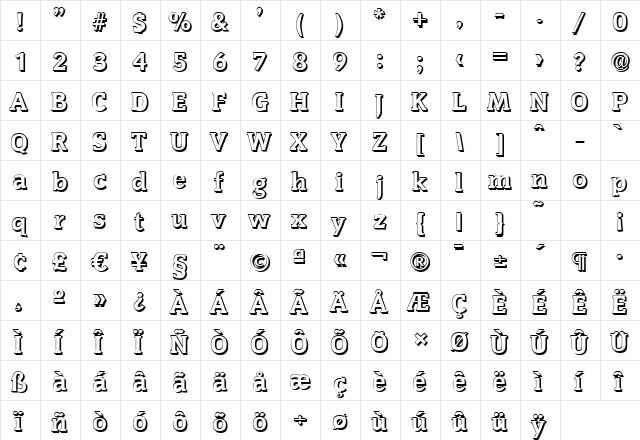
KevinBeckerShadow-ExtraBold Regular Font Preview
KevinBeckerShadow-ExtraBold Regular
Design Context for KevinBeckerShadow-ExtraBold Typeface
KevinBeckerShadow-ExtraBold brings ornamental detail and strong personality to headlines and identities, where visual impact matters more than quiet functionality. Its bold stroke weight gives it real presence on the page.
Font Pairing: Pair with a clean neutral sans-serif for body copy to let KevinBeckerShadow-ExtraBold's character lead without overwhelming the composition.
Pro Tip: Treat KevinBeckerShadow-ExtraBold as the centrepiece of your typographic hierarchy. One strong heading set in a decorative face can carry an entire layout.